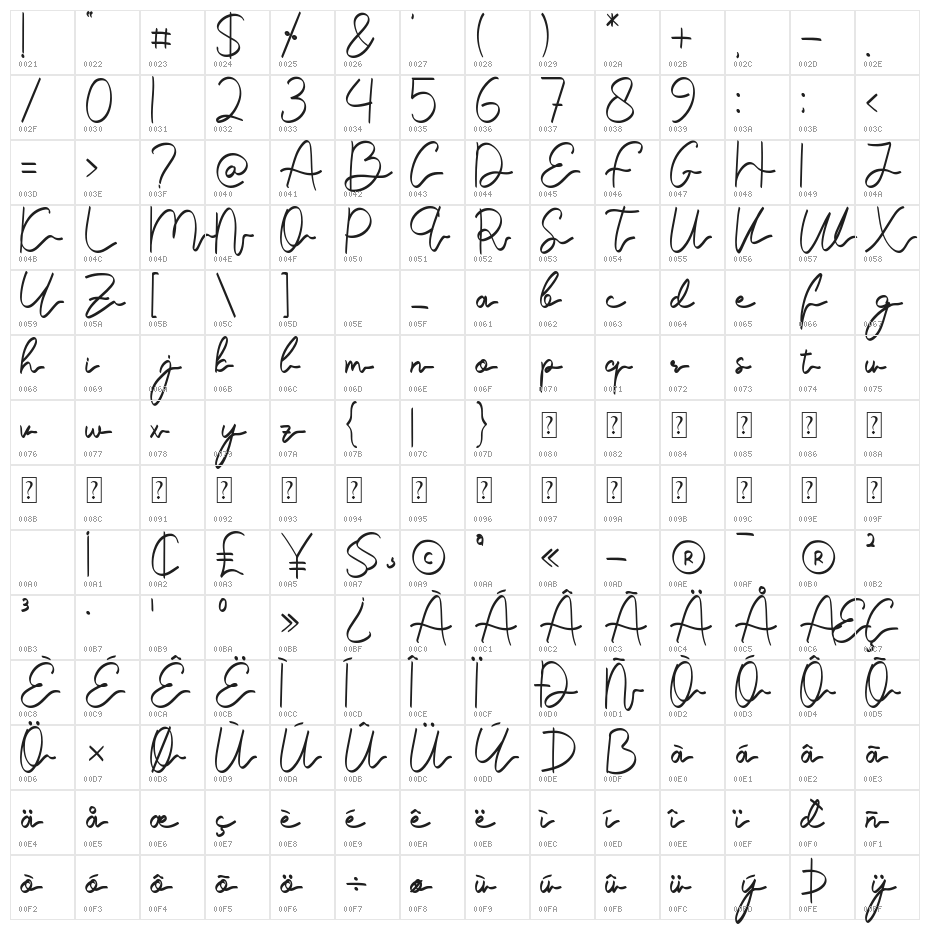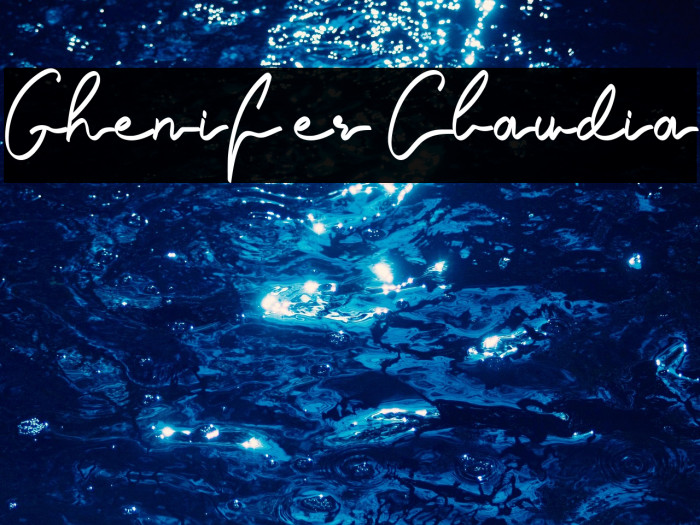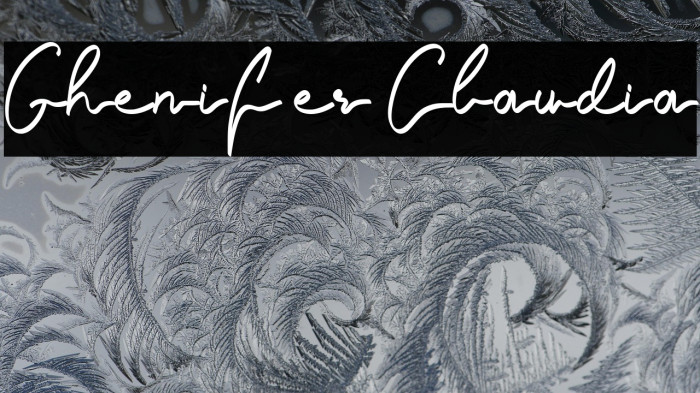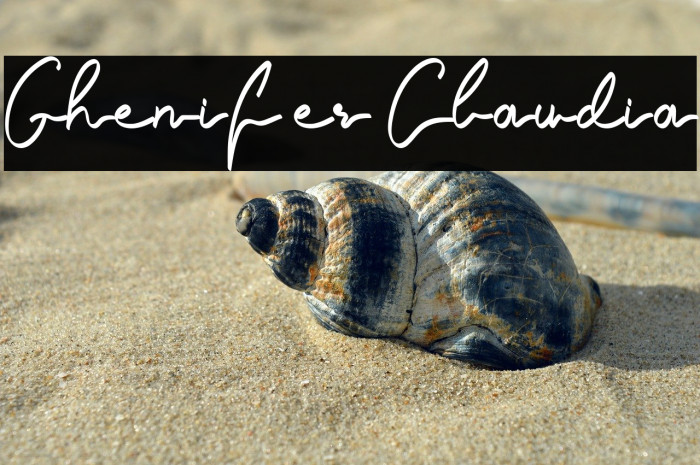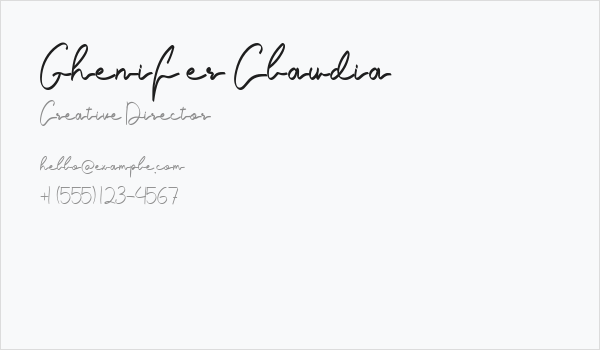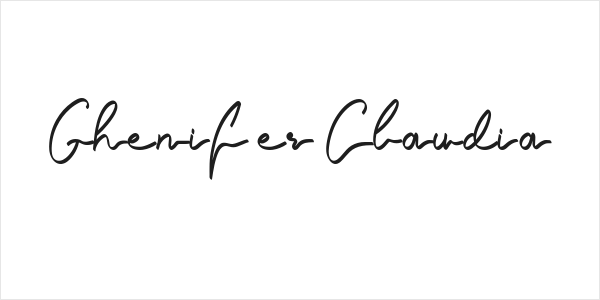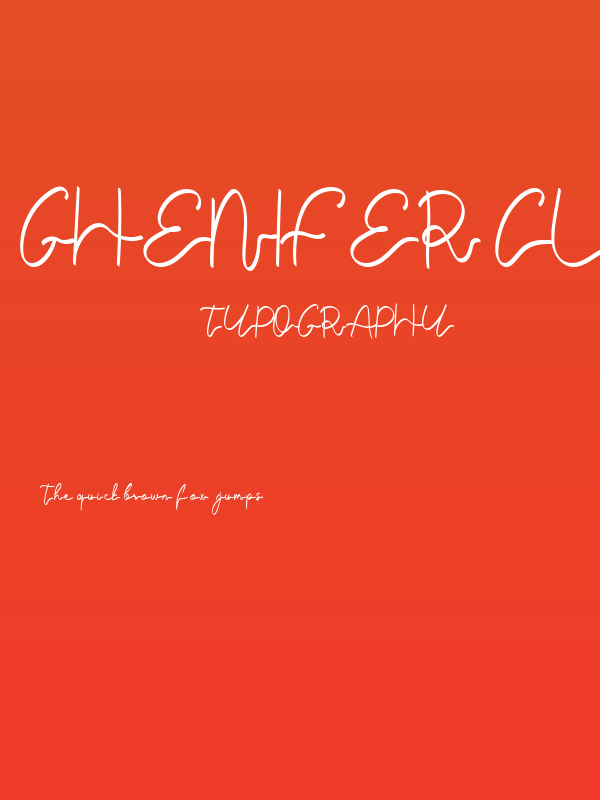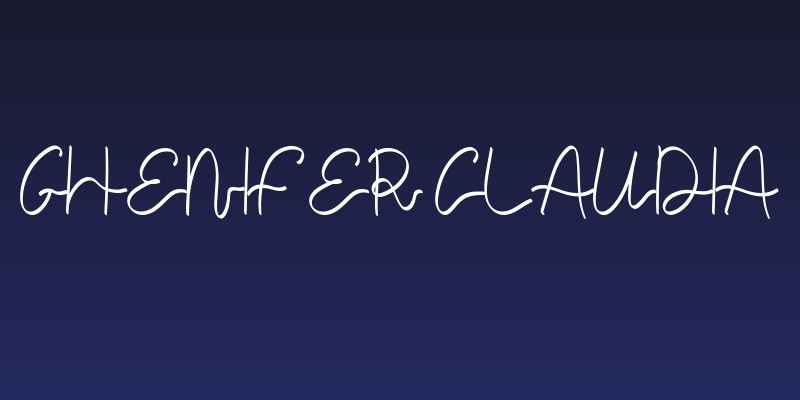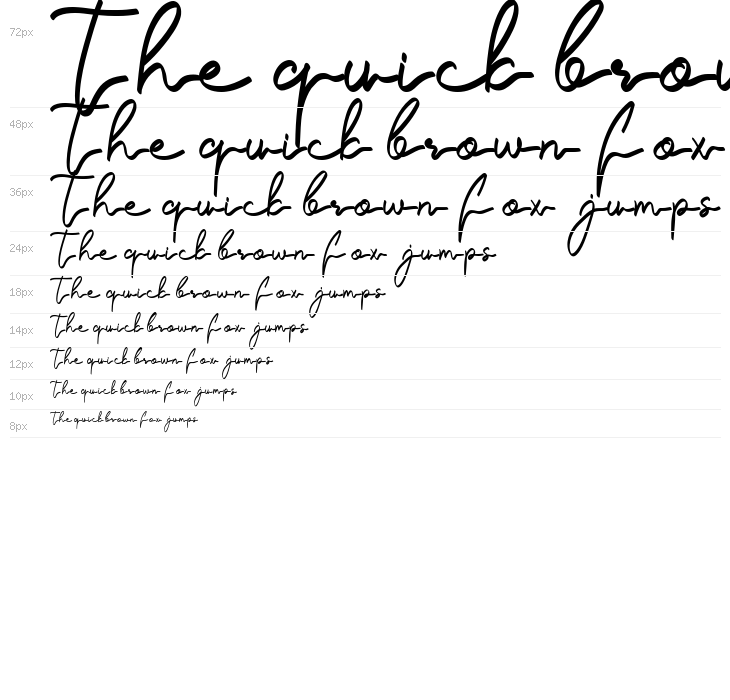
Ghenifer Claudia Font
Ghenifer Claudia Description
This font features a playful and flowing handwritten style, characterized by its smooth, cursive strokes and elegant loops. The uppercase letters are bold and slightly whimsical, while the lowercase letters maintain a consistent, fluid motion that enhances readability. Numbers and special characters are crafted with the same attention to detail, offering a cohesive look across all glyphs. The font's design is both modern and approachable, making it suitable for a variety of creative applications. Its unique personality is conveyed through the slight variations in stroke width, adding a touch of authenticity and charm.
Use CaseLogos, Headlines, Invitations
Proposed ProjectsIdeal for wedding invitations, greeting cards, personal branding, and social media graphics.